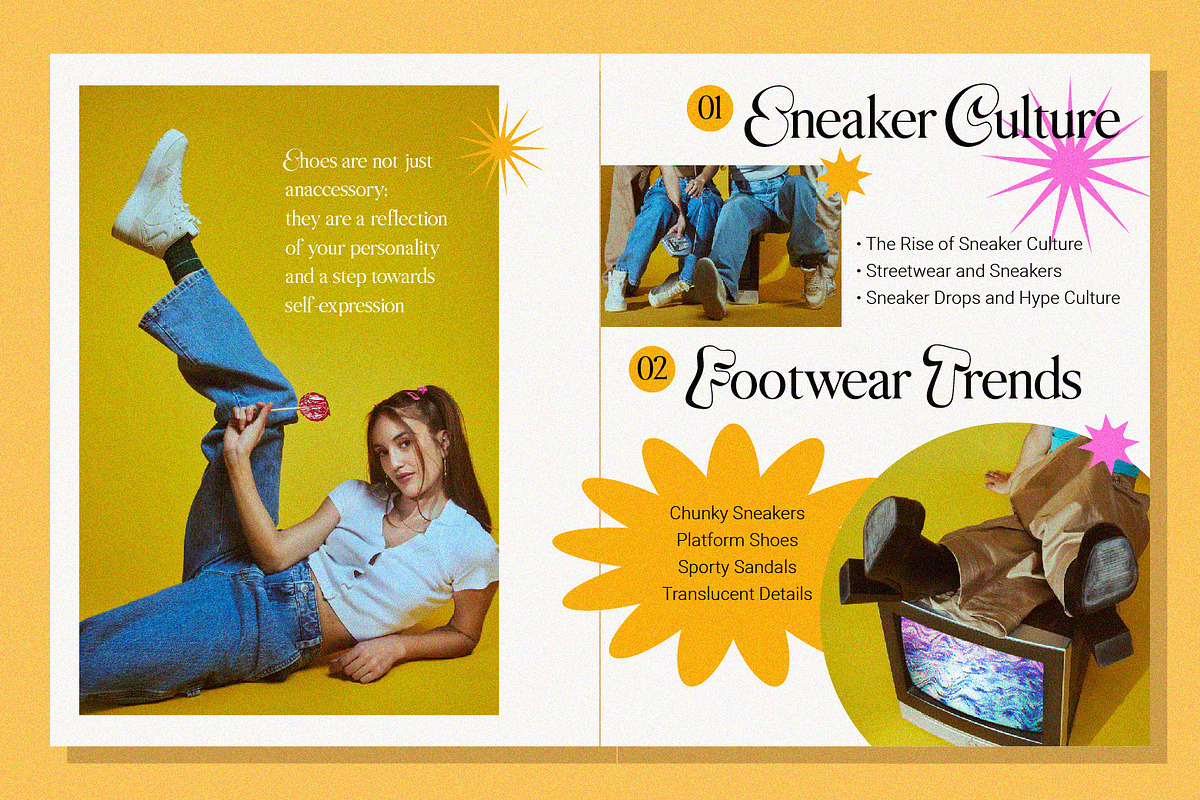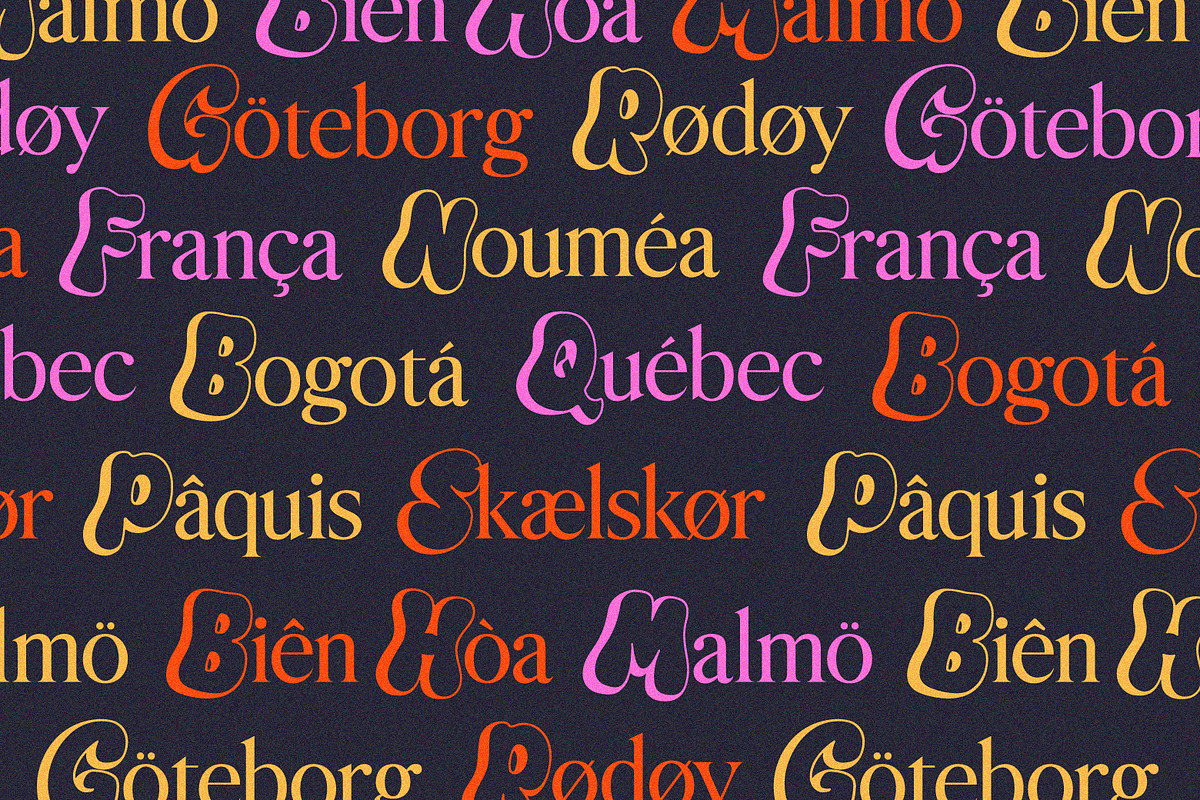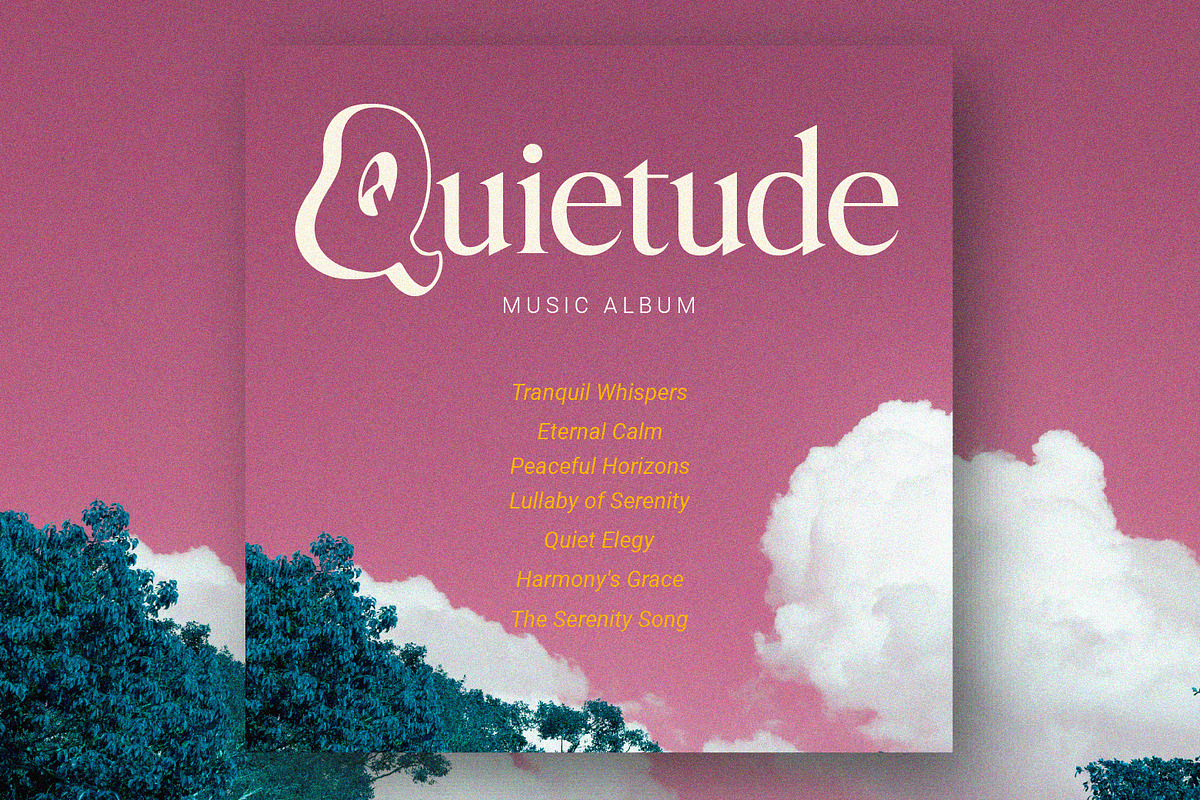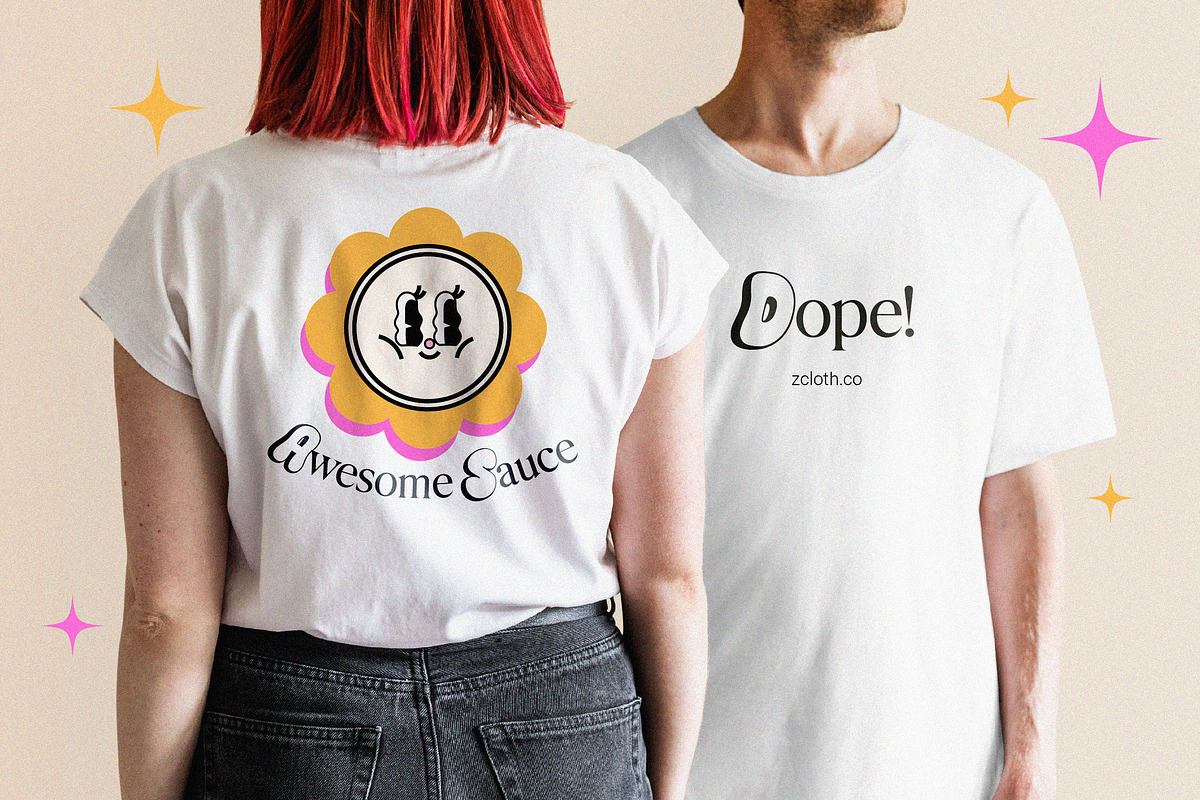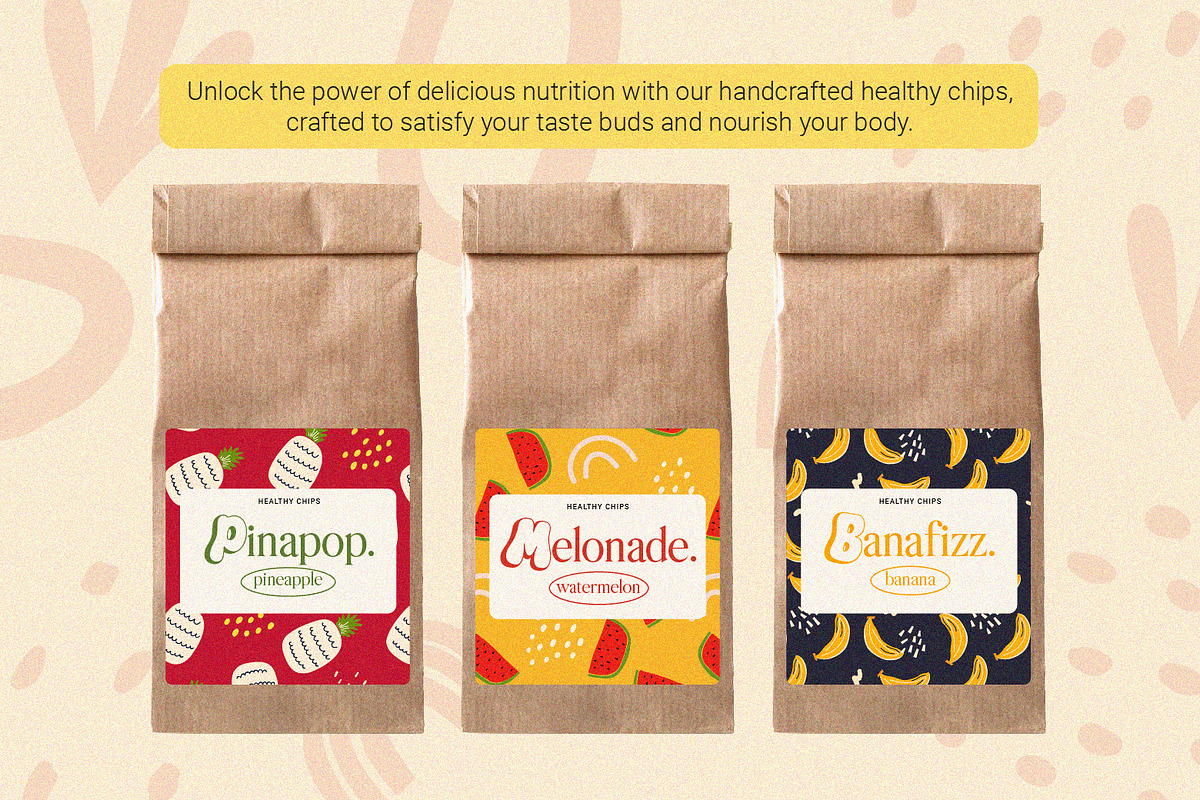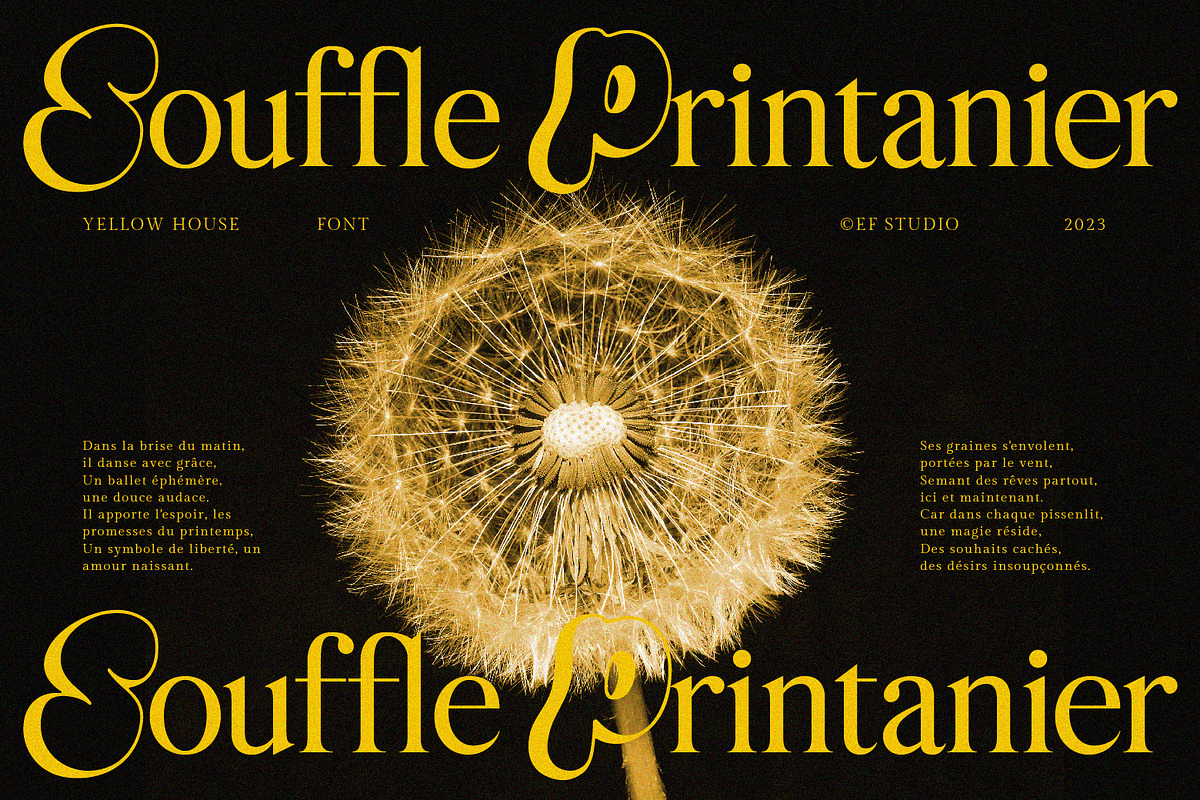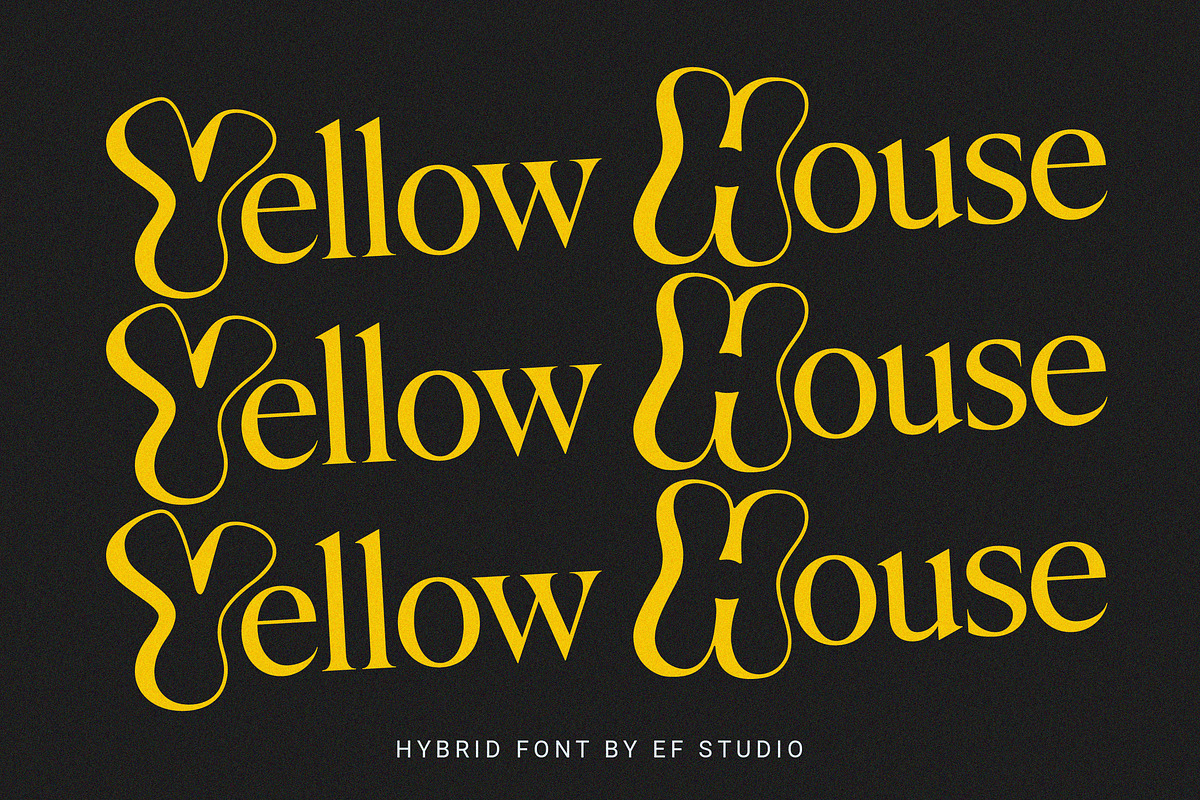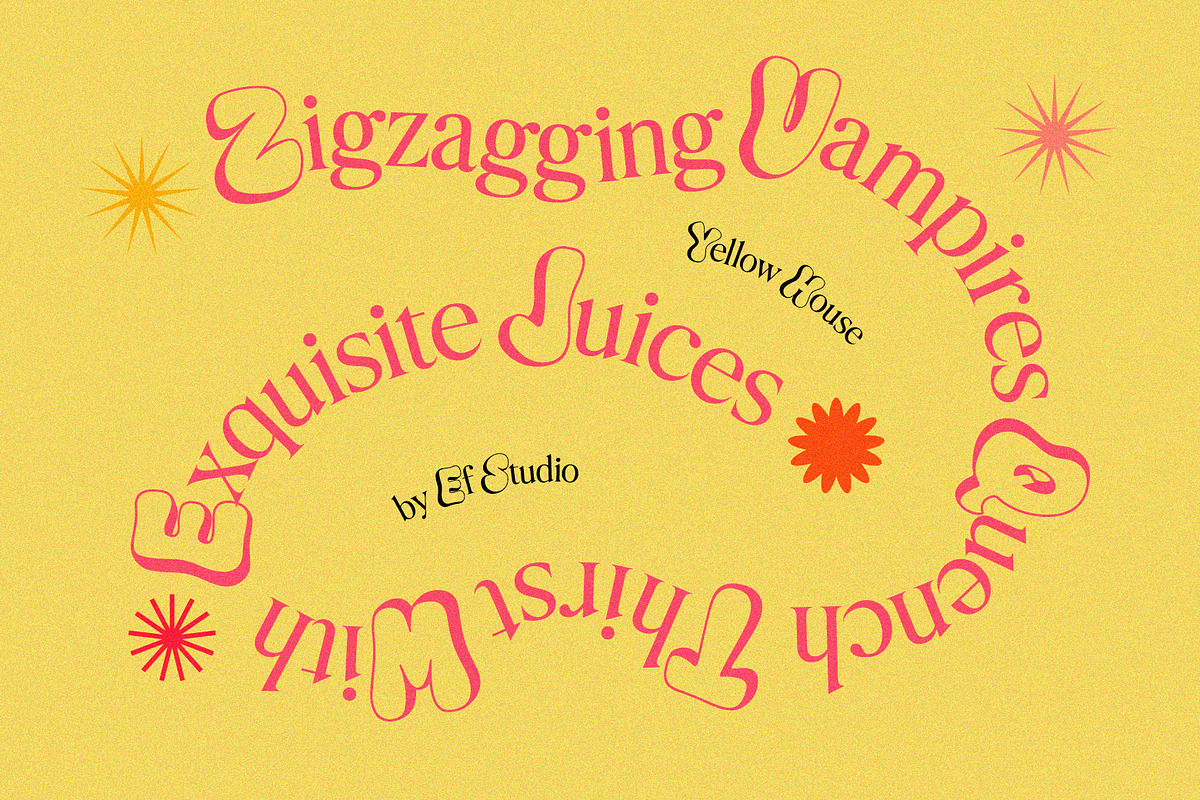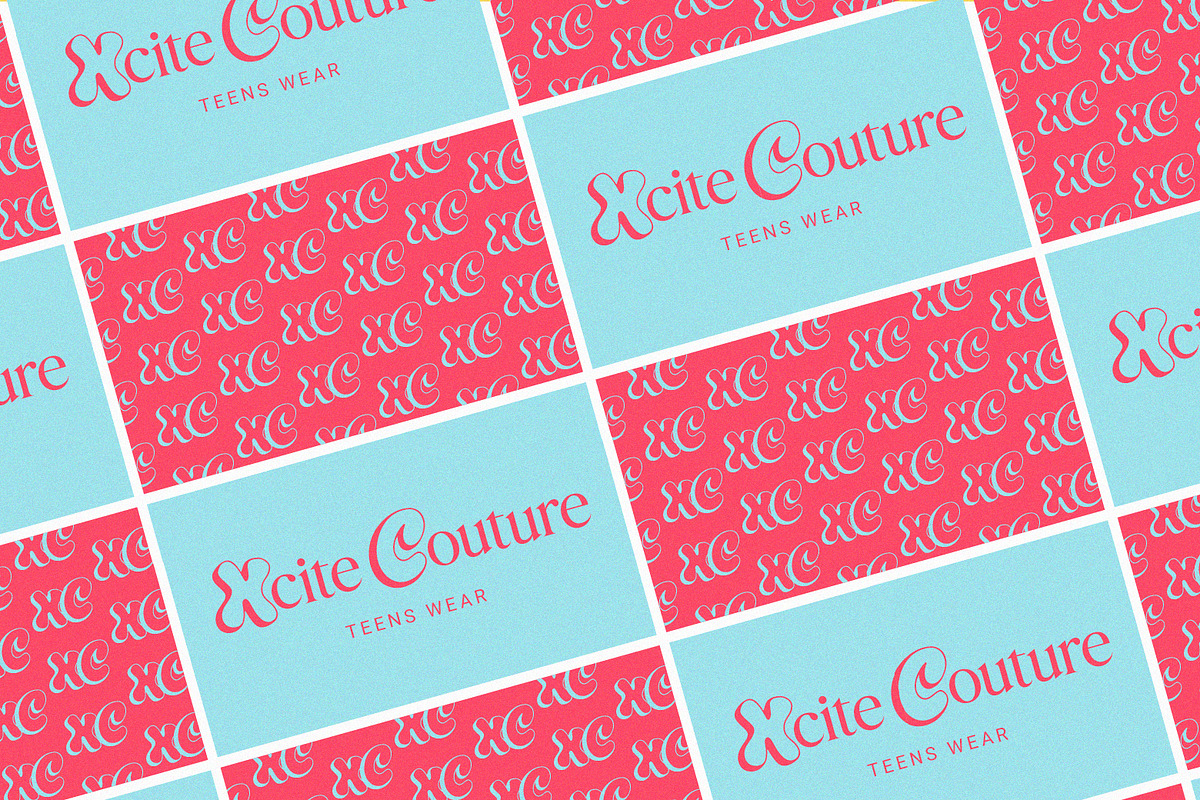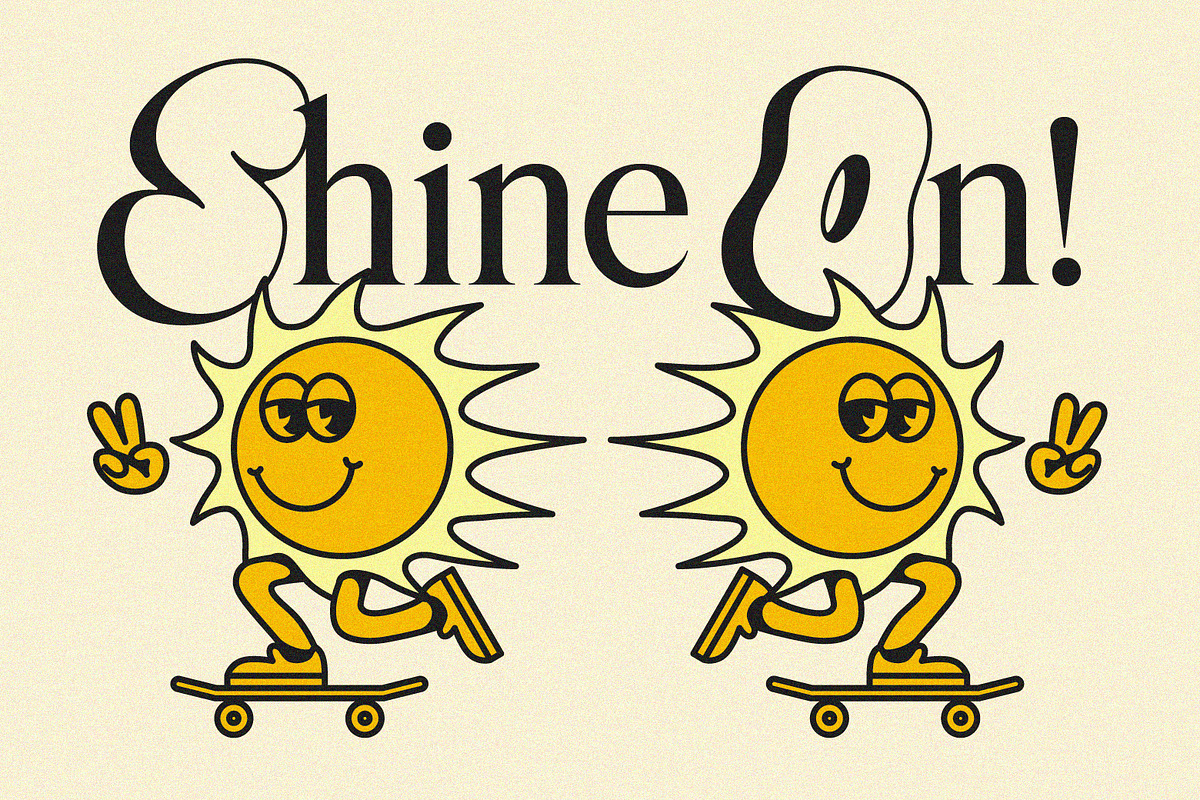
Yellow House is a hybrid font, combination of bubbly display and serif font. It gives contemporary and quirky feels. This font is so versatile, perfect for branding, poster design, editorial design, logotype, packaging, and so on.